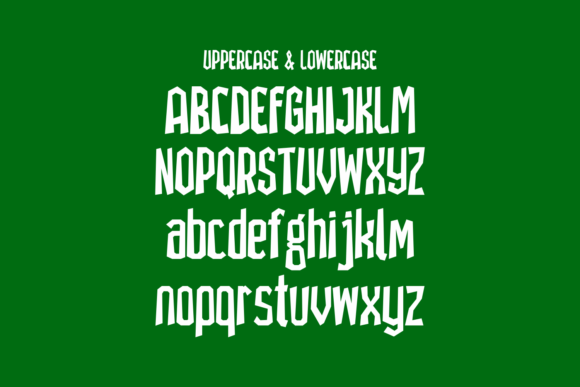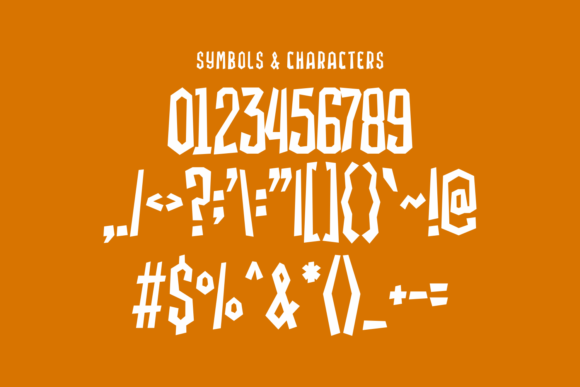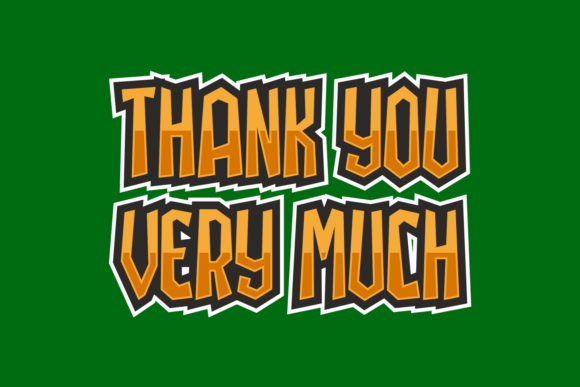
Introduction to Ruwors Font
Have you ever found yourself stuck in a design rut, staring at a blank canvas, wondering what’s missing to bring your creative project to life? For many designers, this feeling is all too familiar. But what if you had the perfect tool to spark that initial spark? Enter the Ruwors Font, a unique and captivating display font that’s about to become your new design BFF.
With its quirky charm and versatility, the Ruwors Font is the perfect addition to any design resource arsenal. Whether you’re working on a free download project or a high-end commercial campaign, this font’s adaptability makes it a valuable asset for designers of all levels. And the best part? Its transparent background allows for seamless integration into any design.
- Designed with a unique, modern aesthetic, making it perfect for a wide range of creative projects.
Honest Review: Ruwors Font
I recently had the chance to work with the Ruwors Font for a creative project and I have to say, I’m quite impressed. ✨ This free download has been a great addition to my design resource library.
The Ruwors Font is a high-quality, modern sans-serif font that’s perfect for digital projects. I loved the transparent background option, which made it easy to integrate into my design. The font is highly customizable, with a wide range of styles and weights to choose from.
- ✨ High-quality design and crisp typography
- ✨ Transparent background option for easy integration
- ✨ Wide range of styles and weights to choose from
Overall, I’m really impressed with the Ruwors Font. It’s a great design resource for any creative project, and I’d definitely recommend it to fellow designers. With a few tweaks to address the limitations, I think it has the potential to become a top-notch design font.
The Ruwors Font is commonly used in graphic design, digital art, and creative projects that require a high-quality, unique font. It is also ideal for use in presentations, documents, and websites that require a professional and visually appealing design. With its transparent background, the Ruwors Font can be used as a design element in your project.